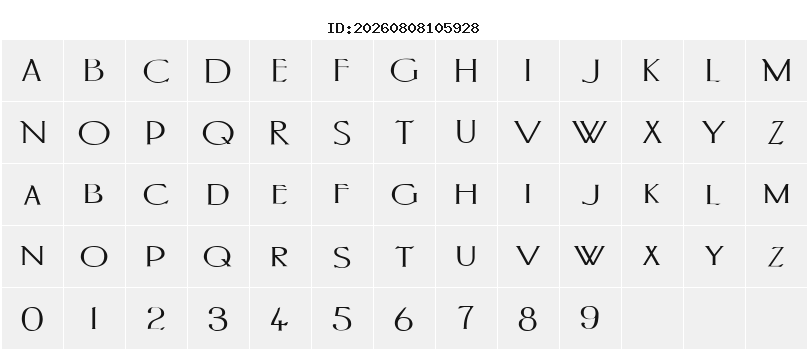
• Font Name: PortlandRoman
• Designer: PJL
About PortlandRoman.ttf
PortlandRoman.ttf is a modern, elegant sans-serif font designed for ultimate readability and visual harmony. Perfect for branding, headlines, web design, and print materials.